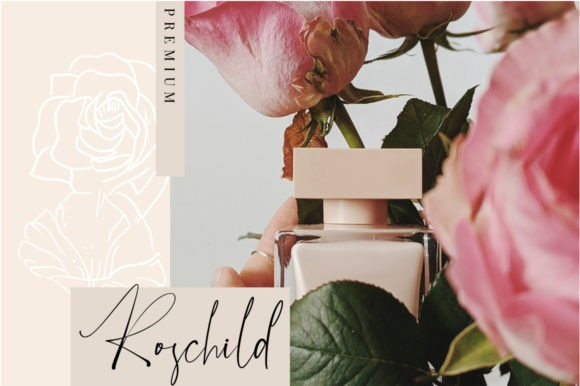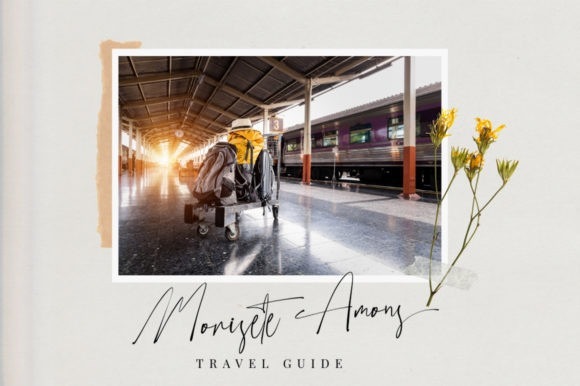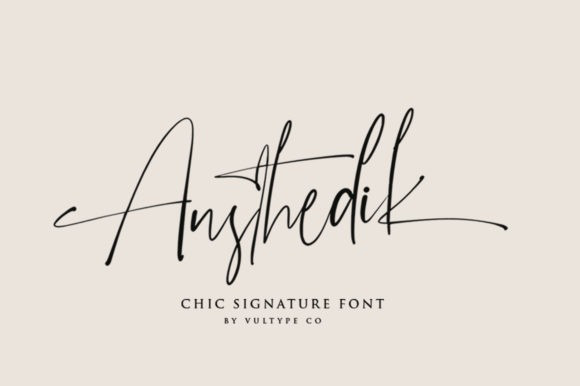
Austhedik Script Font
Austhedik Script Font a stylish and elegant handwritten font ready to impress your audience and make your branding shine. Make your projects stand out with this elegant and wonderful font wherever you use it. Perfect for headings, logos, ads, printed quotes, packaging, and even your website or social media branding.
This font is PUA encoded which means you can access all of the glyphs and swashes with ease!